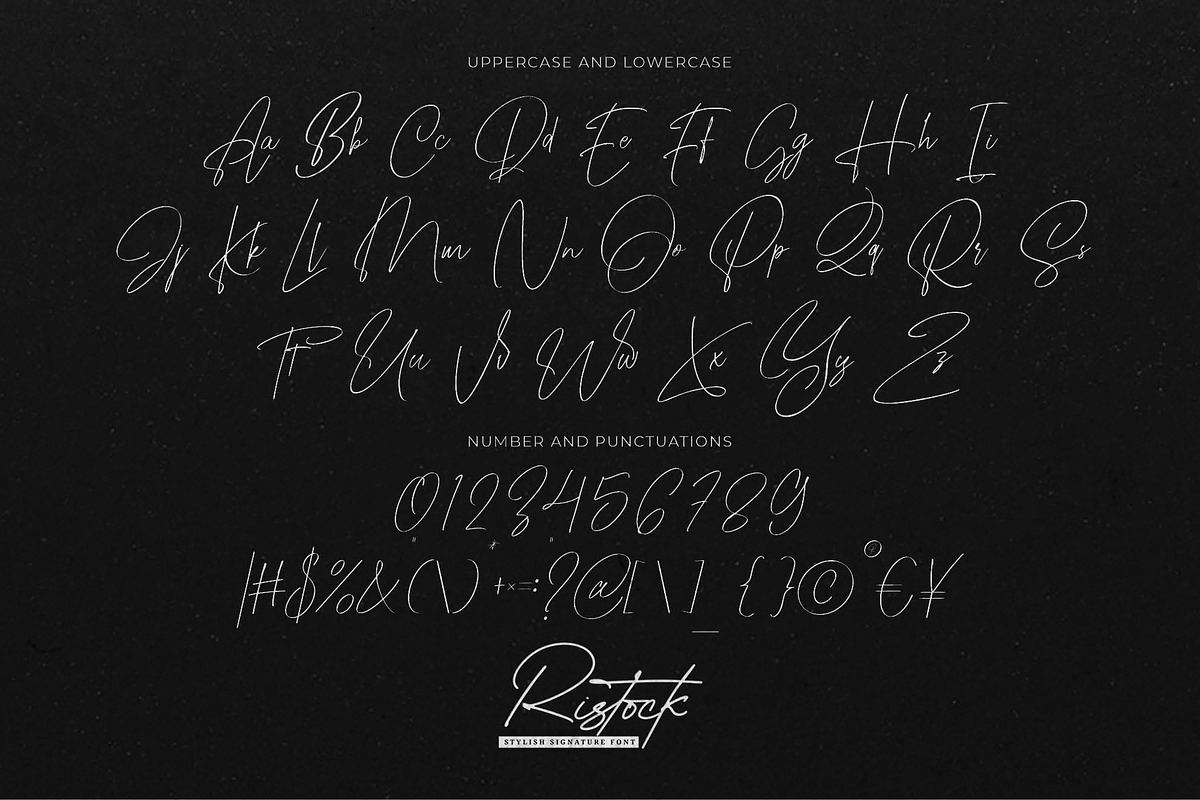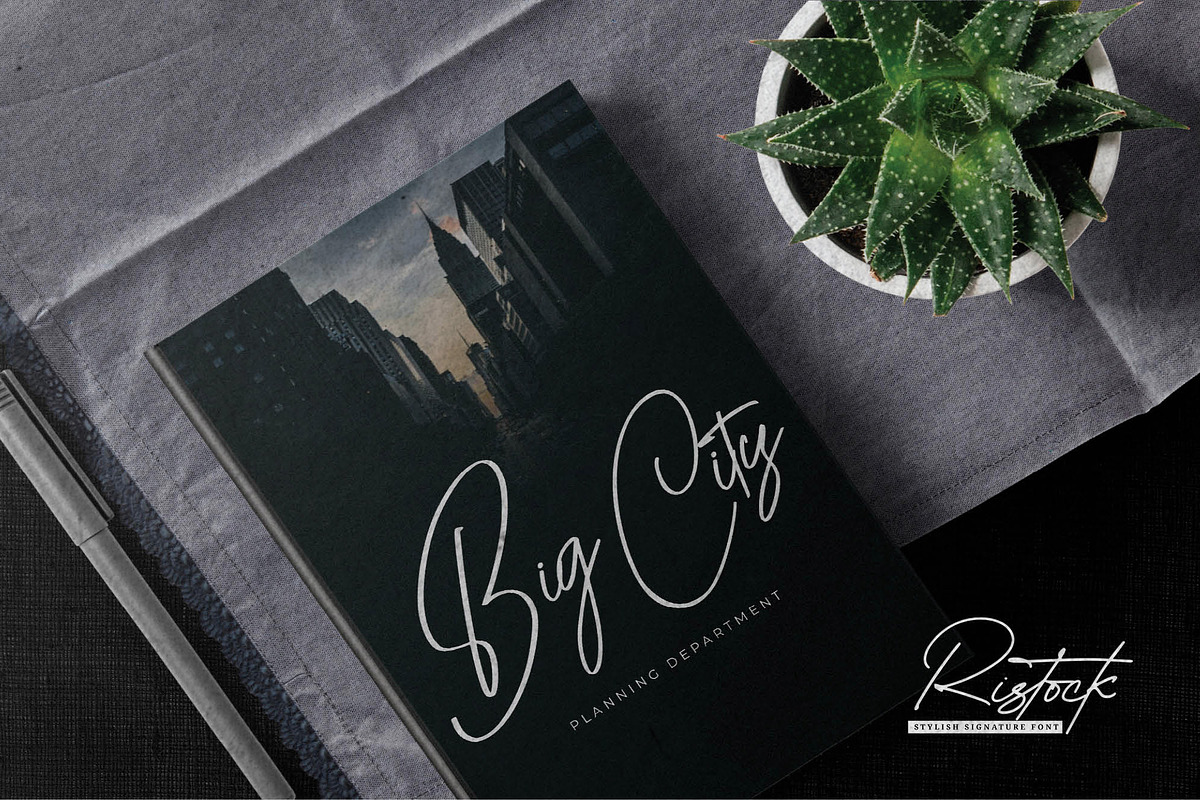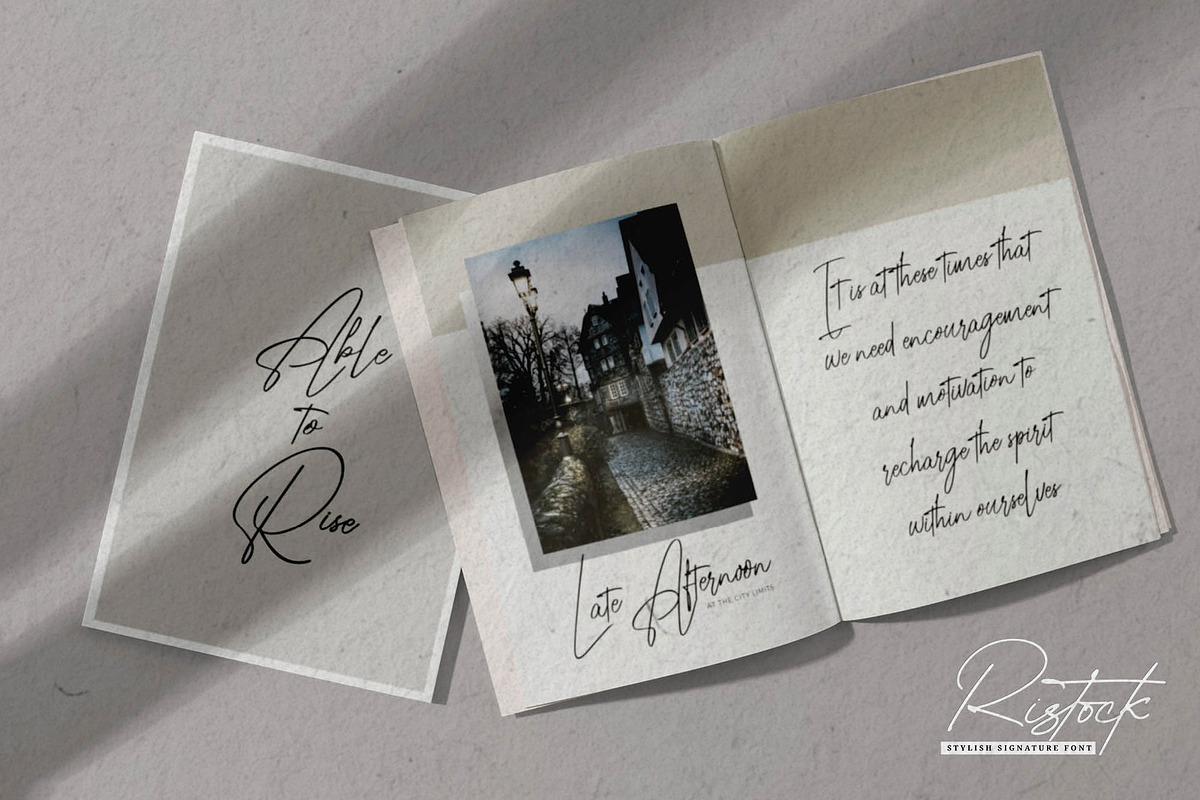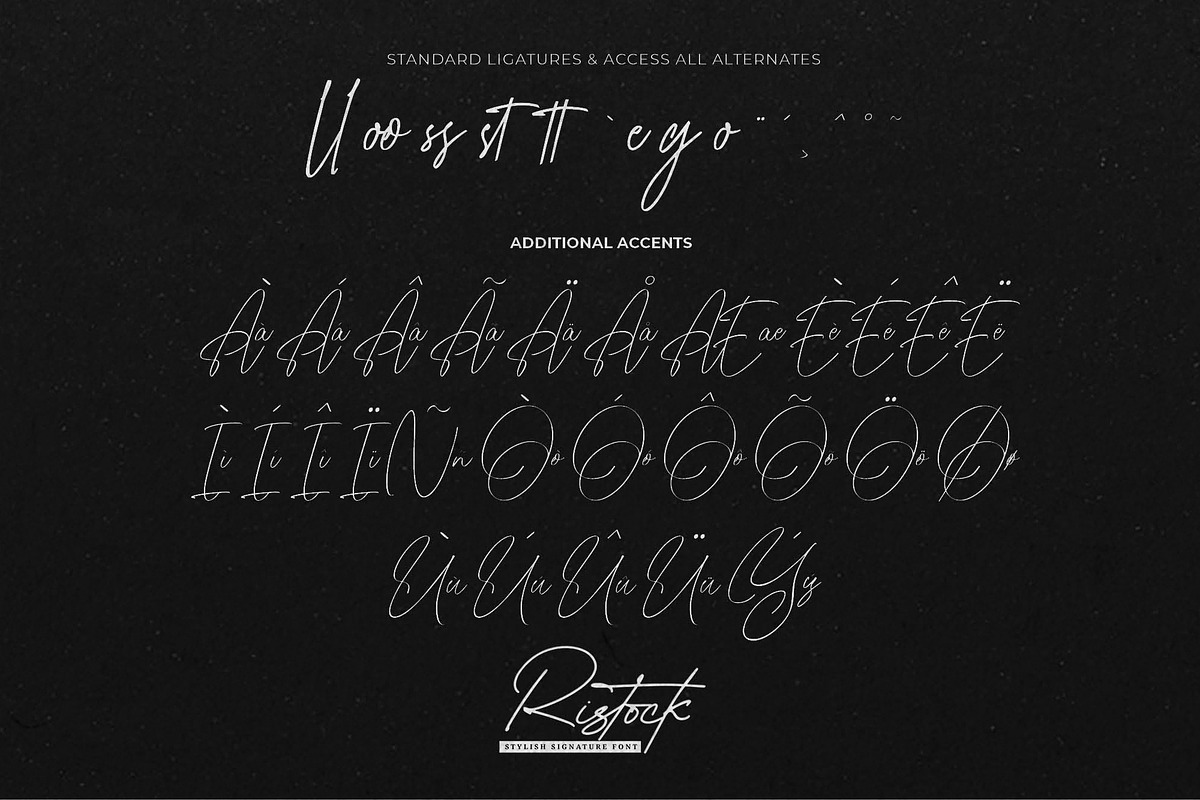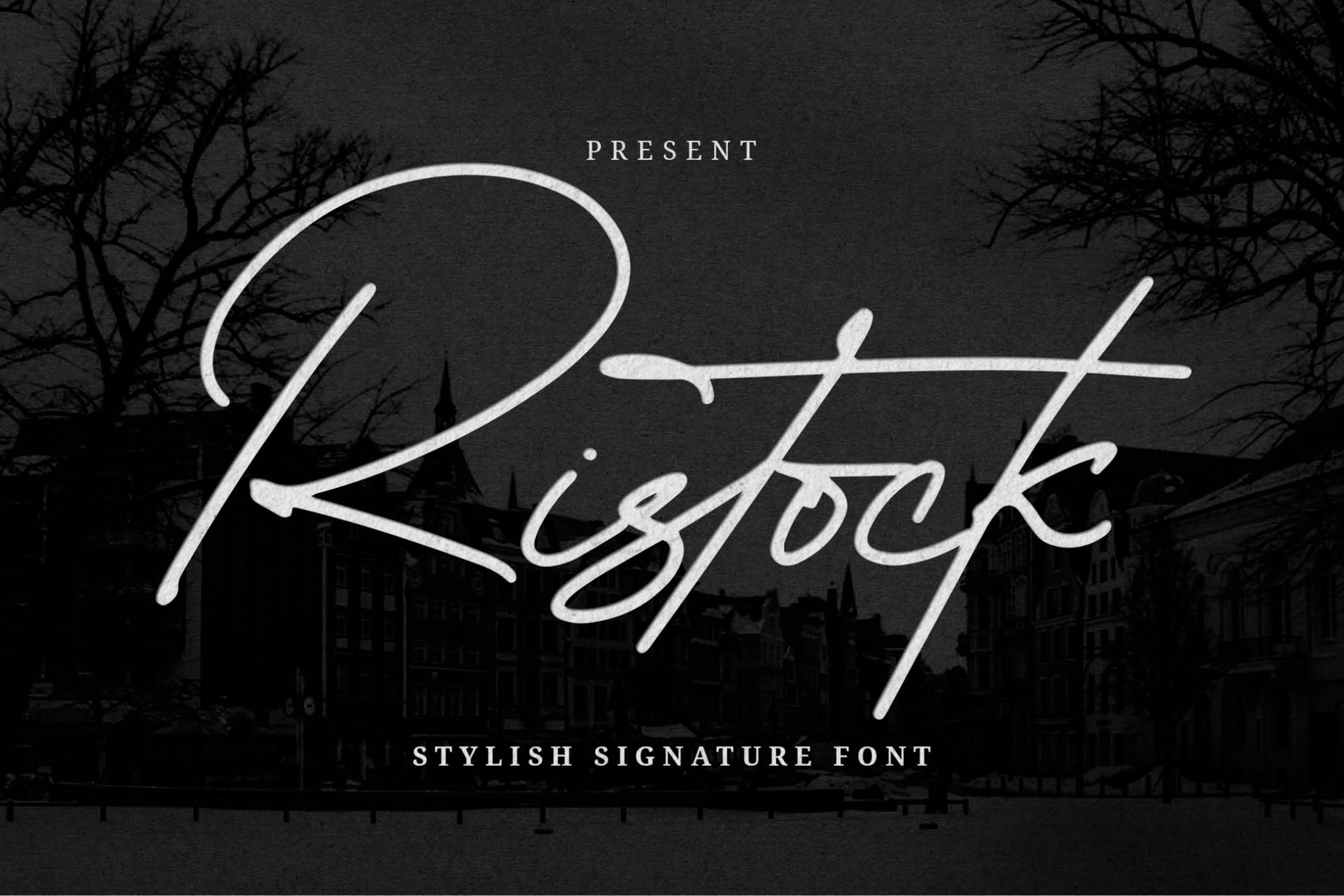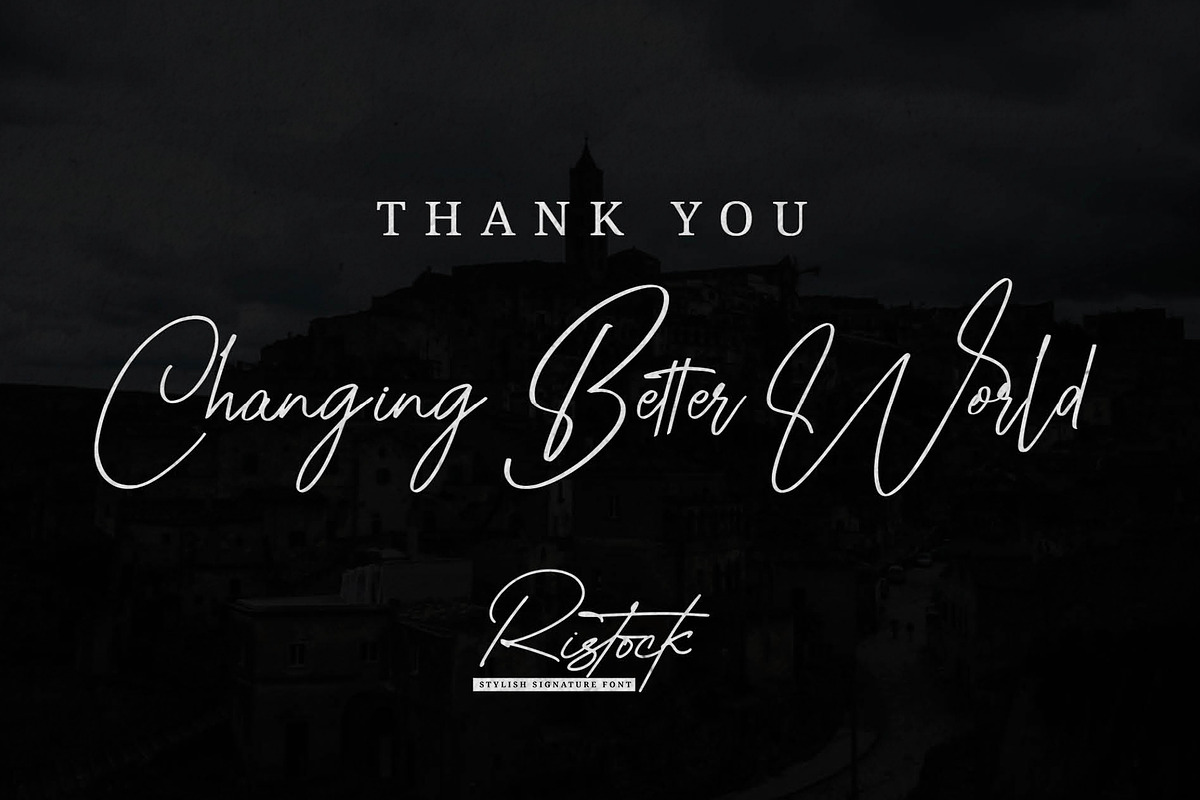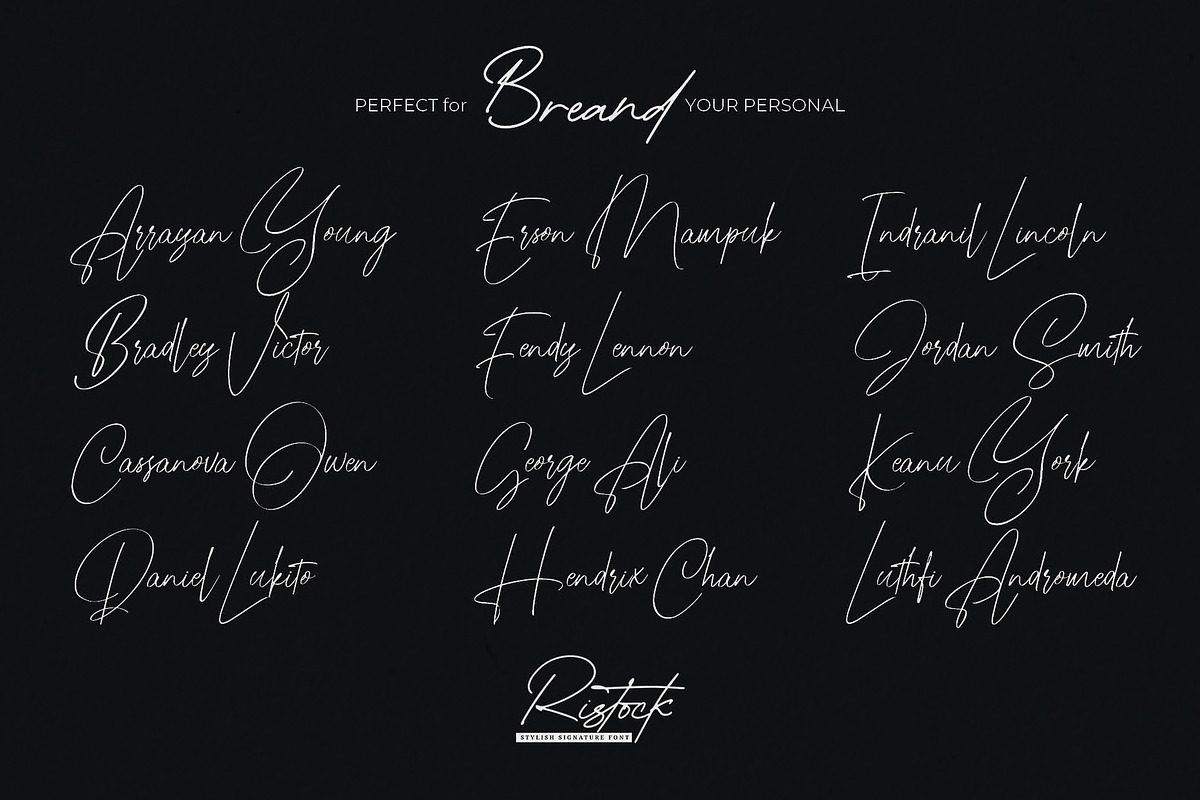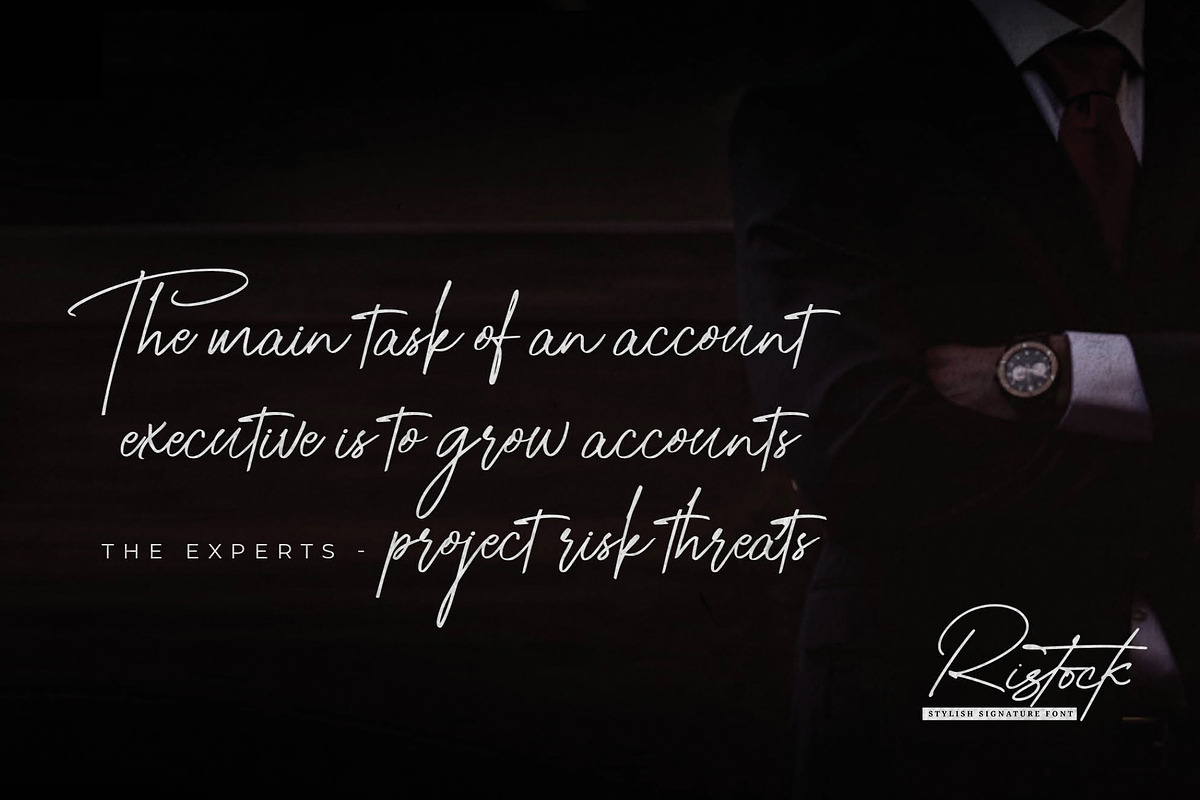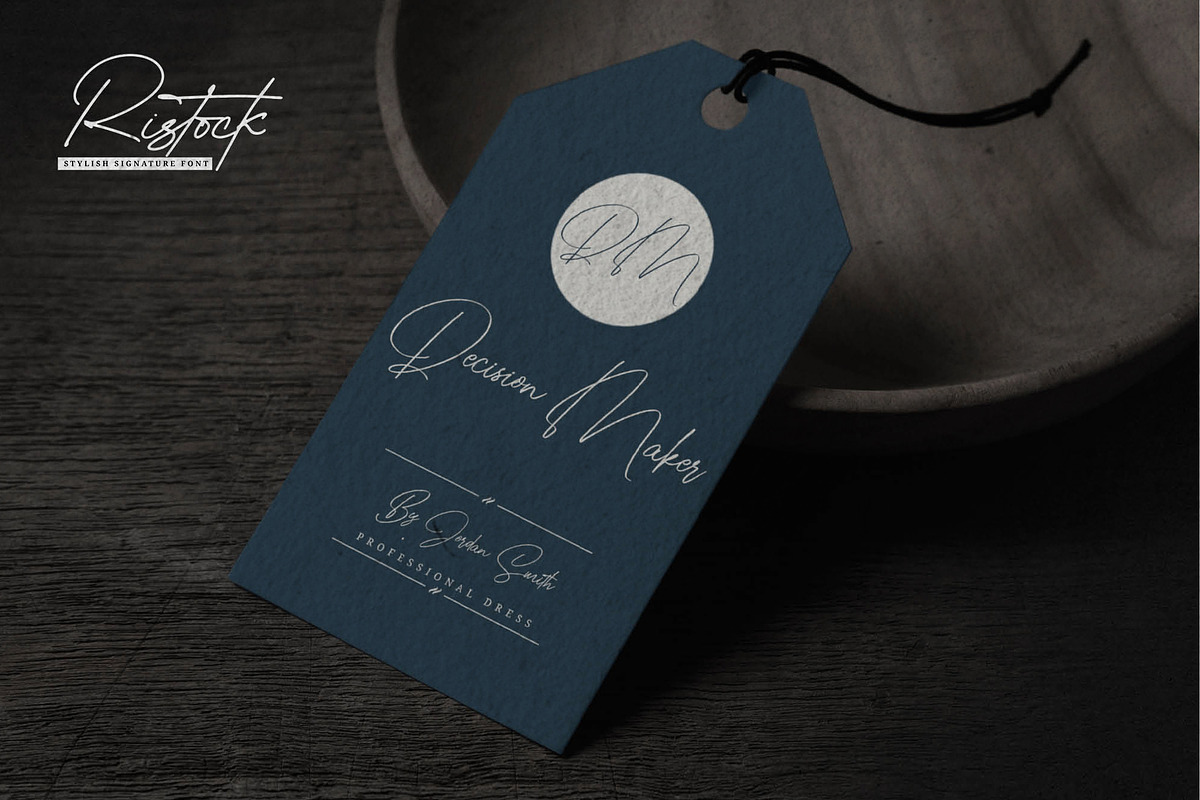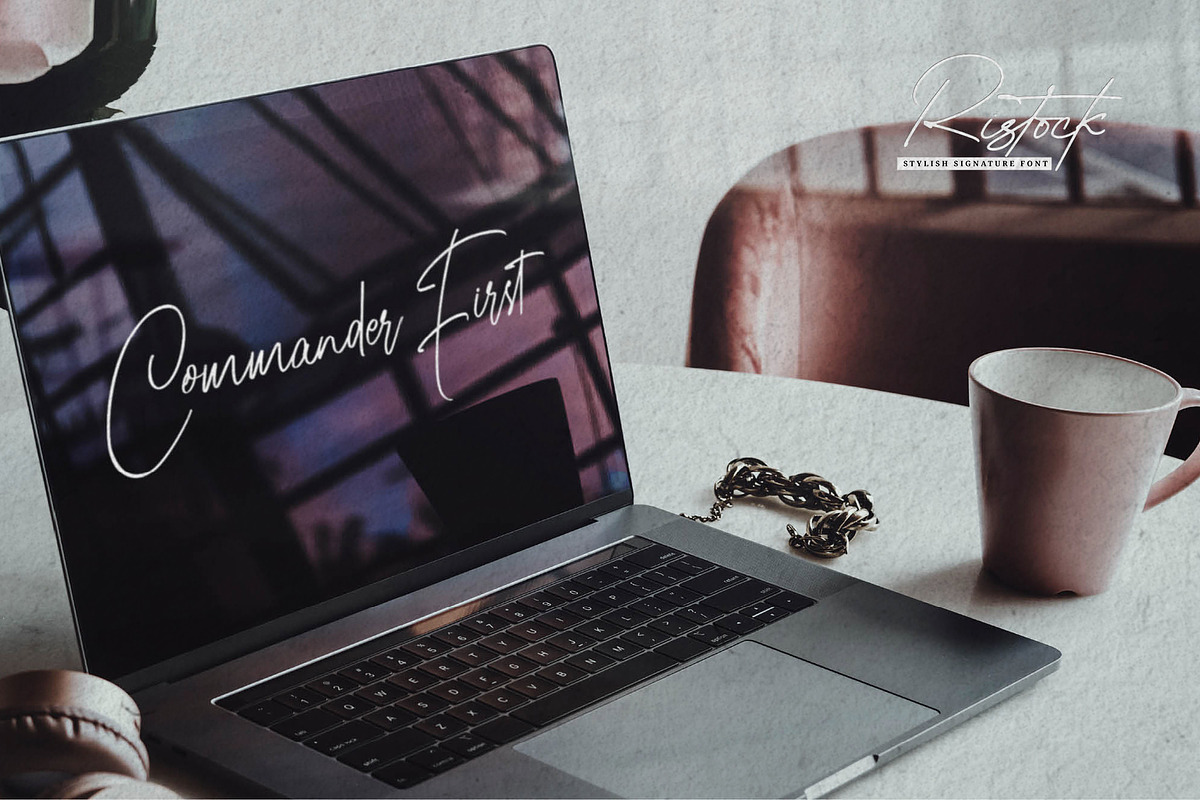
Ristock – Stylish Signature Font
Ristock is a stylish signature typeface crafted with elegant strokes, refined curves, and a beautifully natural handwritten flow. Designed to embody sophistication and modern luxury, this font brings an authentic personal touch that feels both graceful and effortlessly classy. Its smooth lines, delicate rhythm, and expressive letterforms create a timeless signature look perfect for designs that demand elegance, intimacy, and high–end visual appeal. Ristock captures the essence of handcrafted beauty while maintaining the polished refinement needed for premium branding.
Great For • luxury branding, boutique logos & fashion labels • personal signatures, name branding & stationery • wedding invitations, elegant quotes & editorial layouts • photography watermarks & creative portfolios • upscale packaging design & premium product identity • minimal, classy & modern design compositions
Style & Feel elegant • handwritten • luxurious • smooth • classy • refined